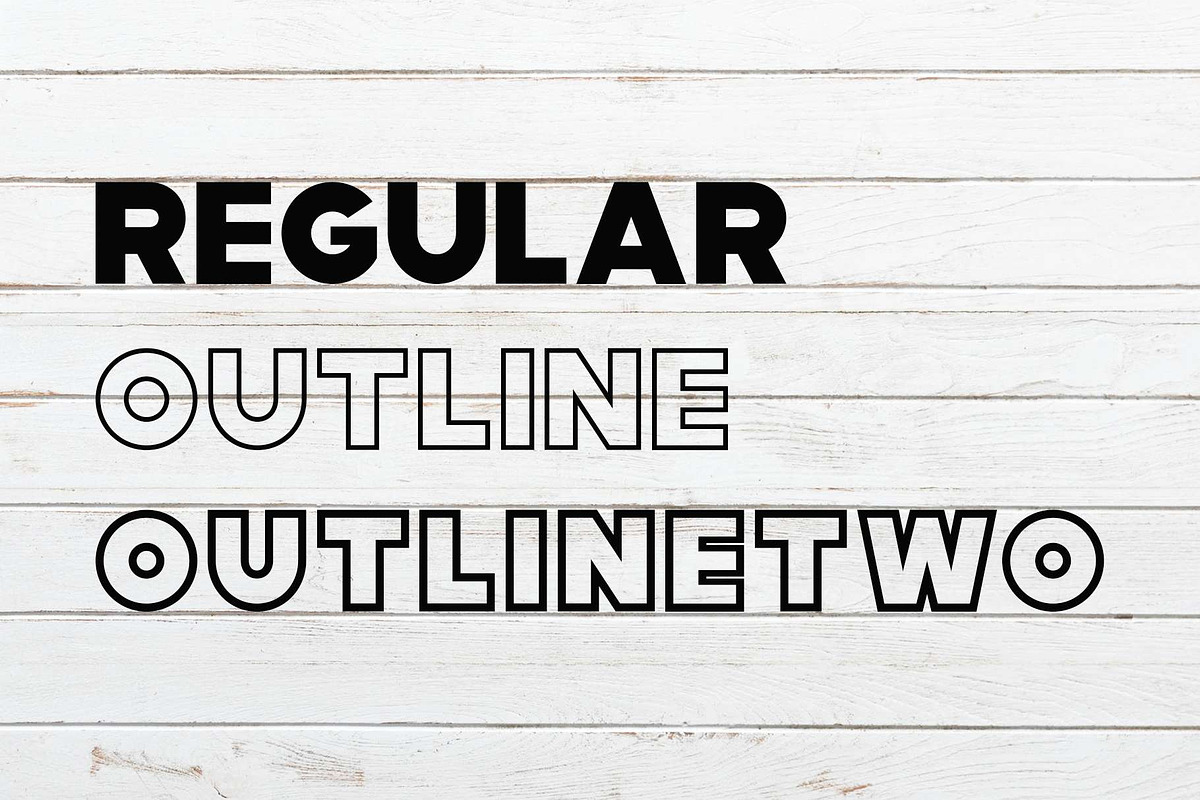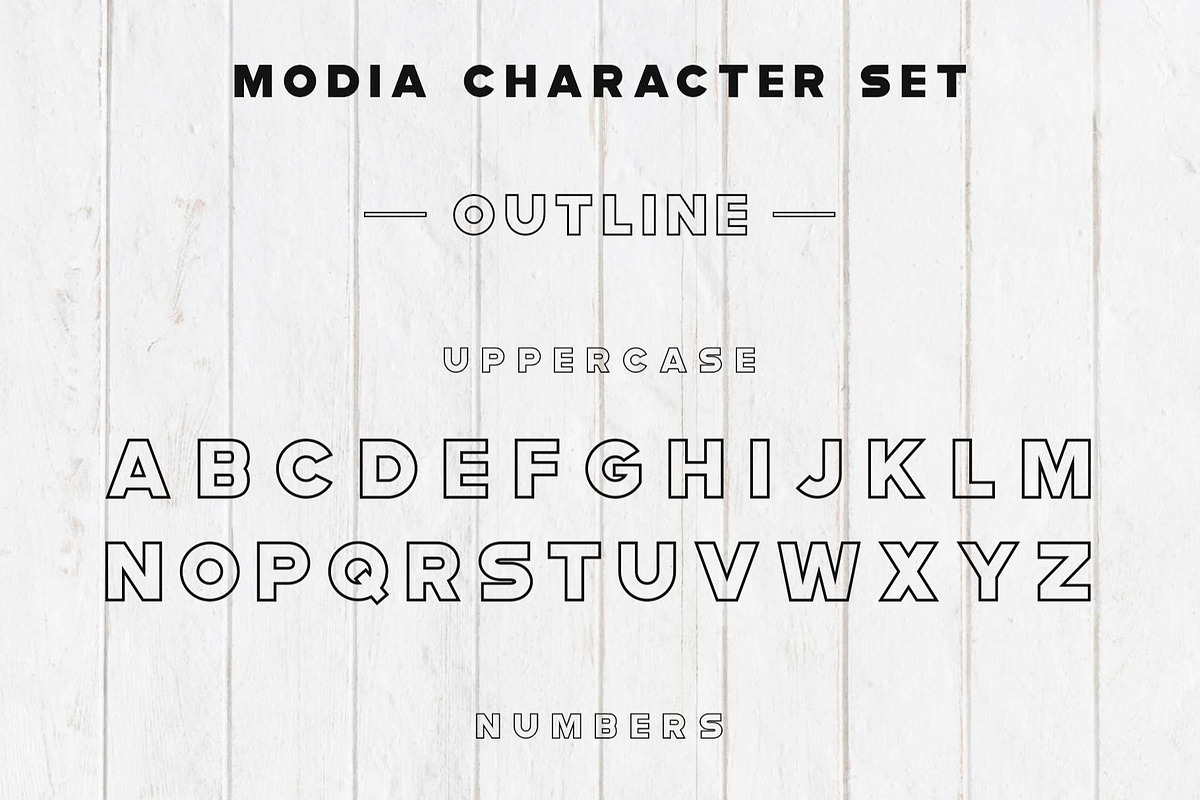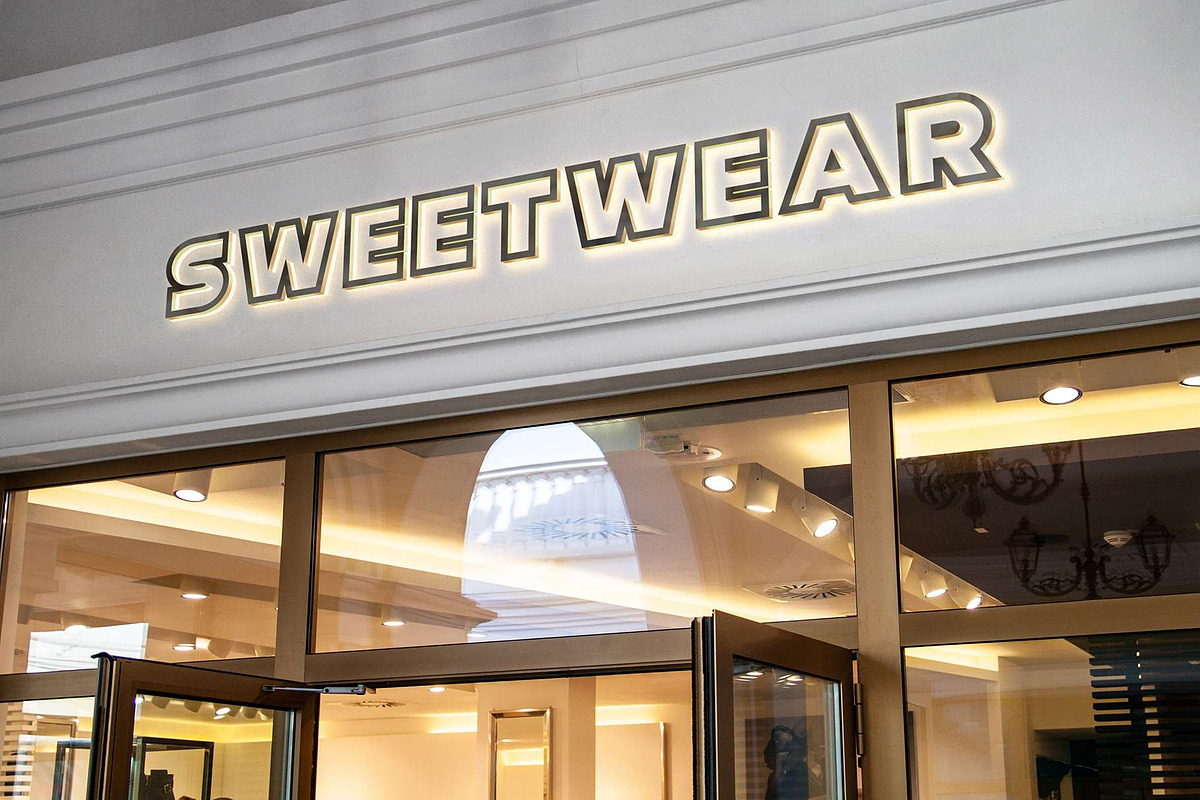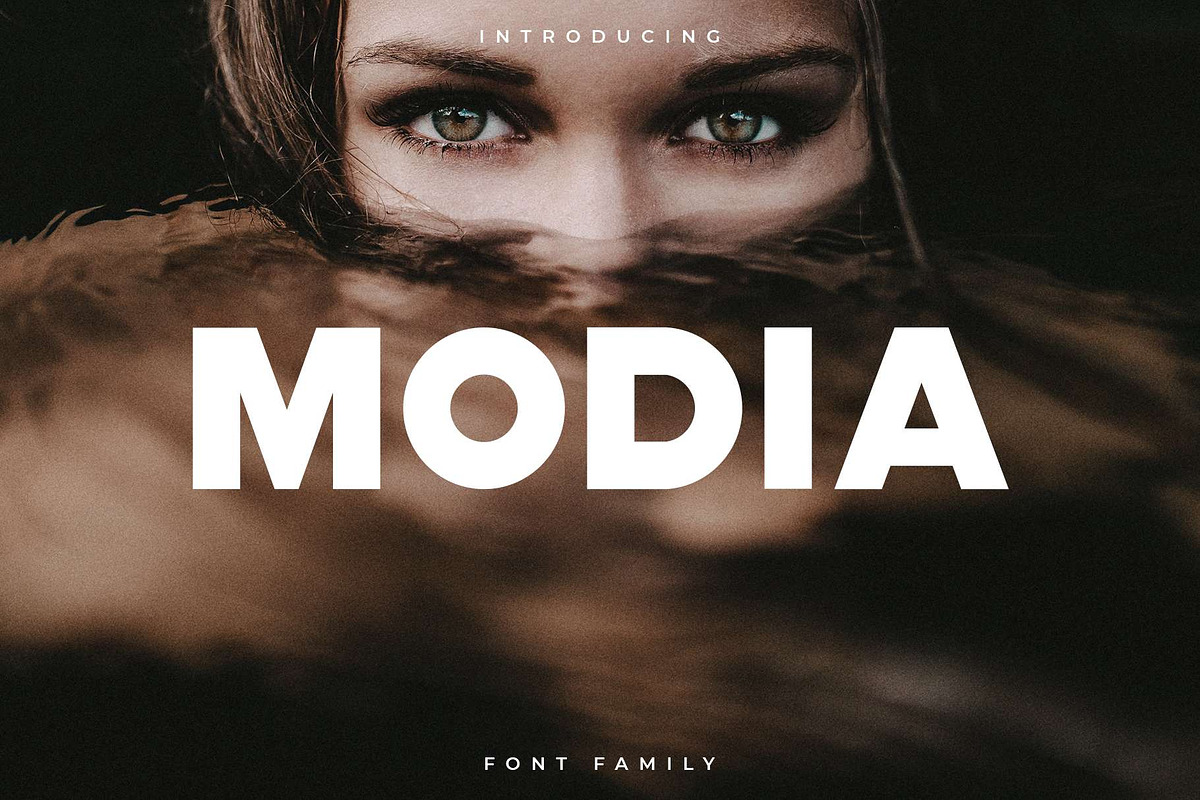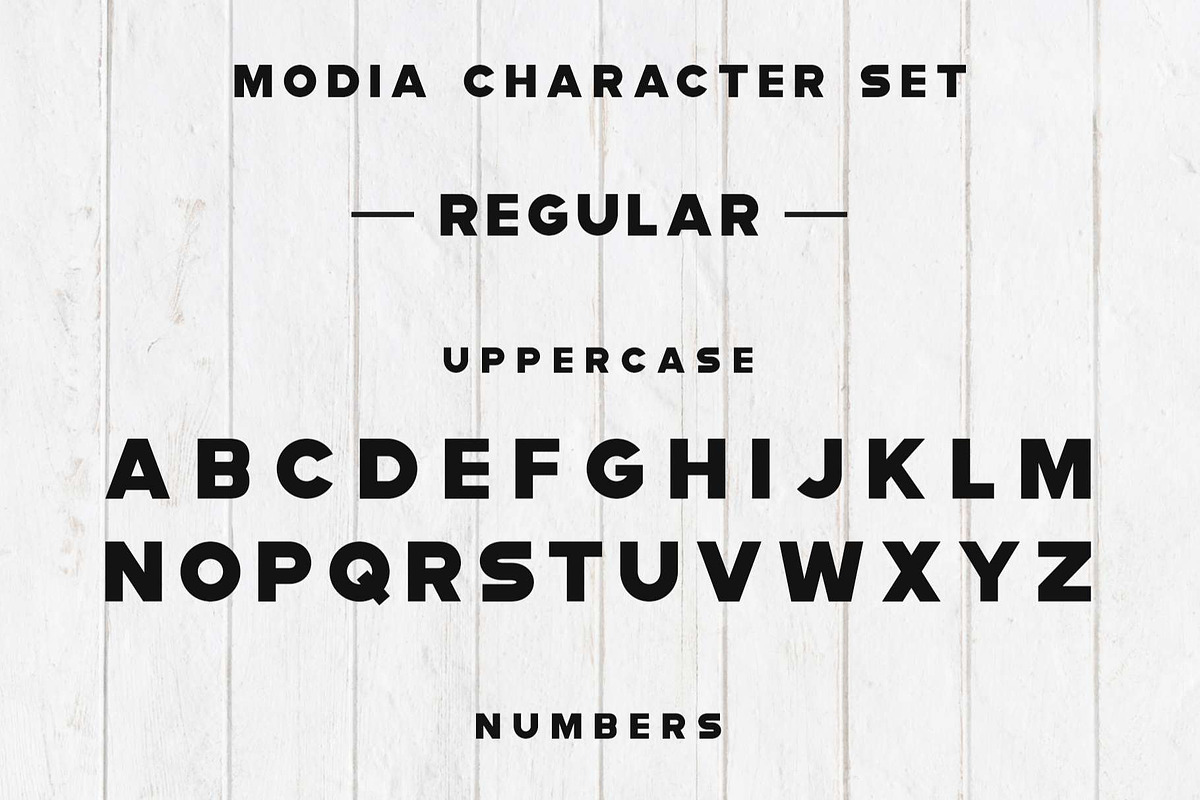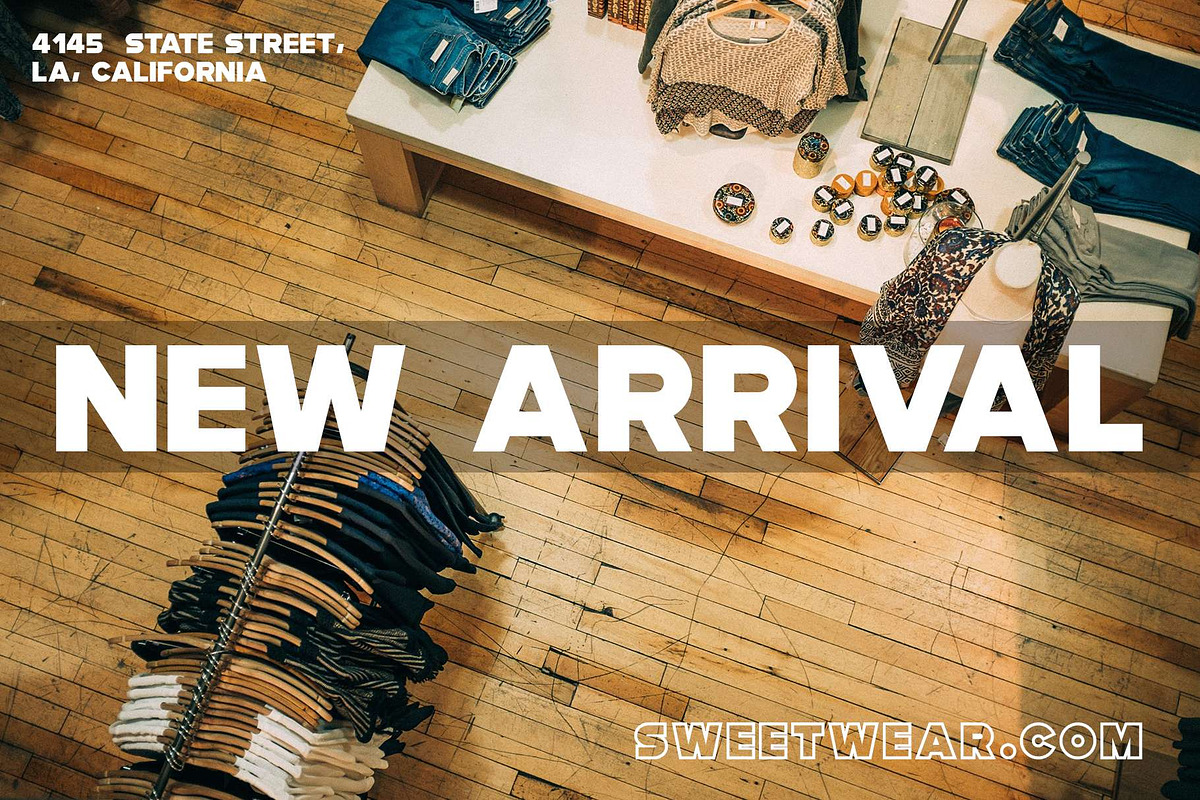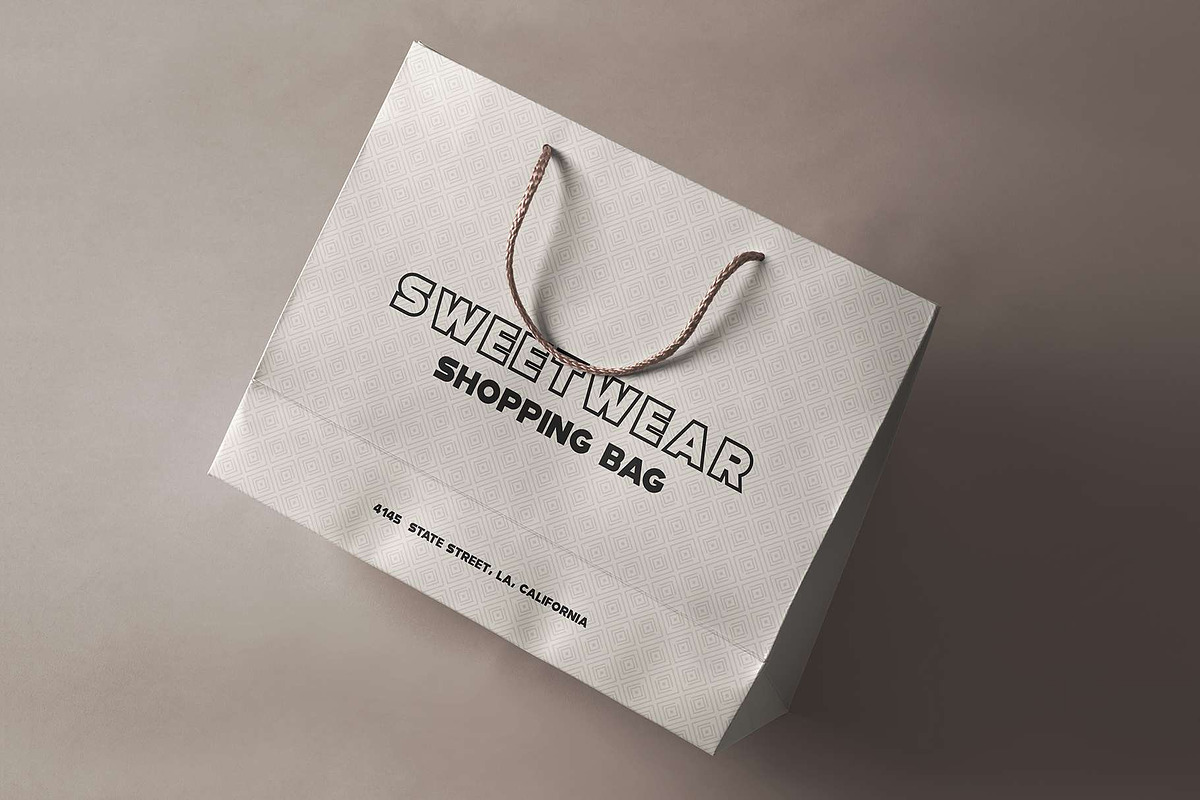
Modia Font Family - Sans Serif
Modia is a strong and clean sans serif font. It's a versatile font family designed for strong, classic branding. Modia works great in any branding, logos, magazines, videos, product packaging, website headers, clothing designs and much more.
- Modia Regular
- Modia Outline
- Modia OutlineTwo